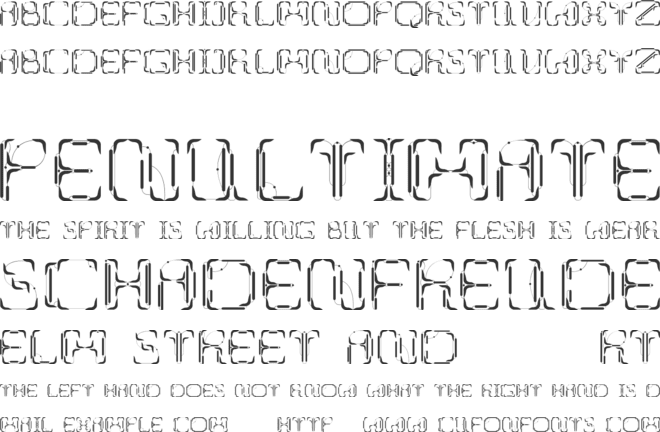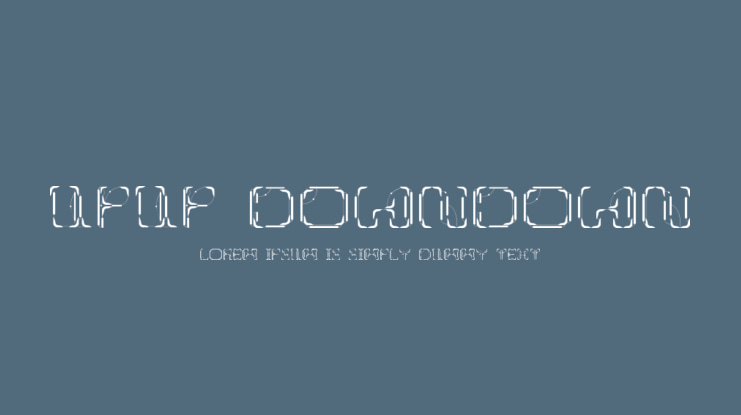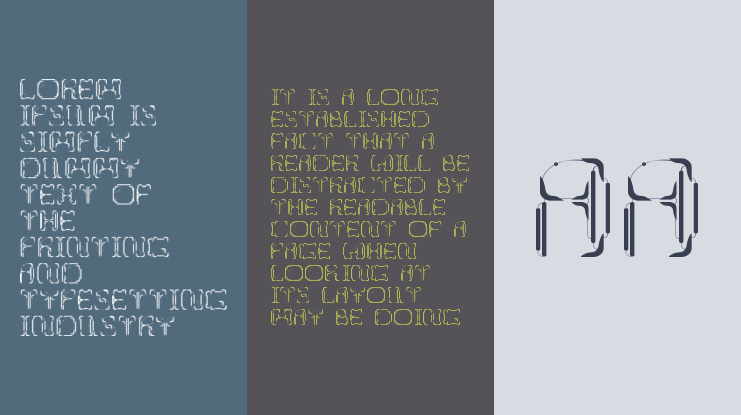
UpUp DownDown Font
UpUp DownDown is a modular typeface that drew inspiration from deconstructing a controller. The style is themed for E3 or the Electronic Entertainment Expo, but shouldn't be limited to just gaming culture.
The typeface at the moment is only capital letters and will continue to see improvements and additions later on.